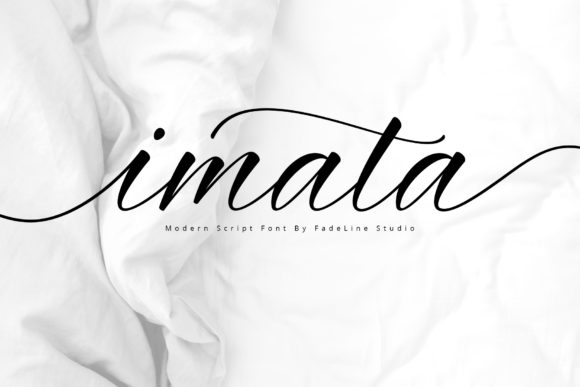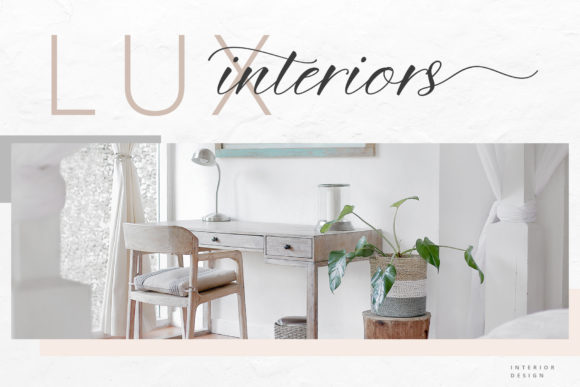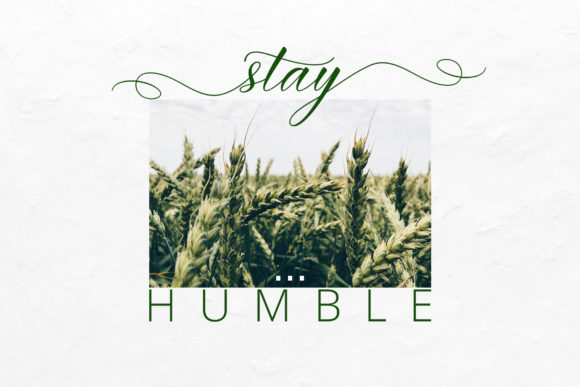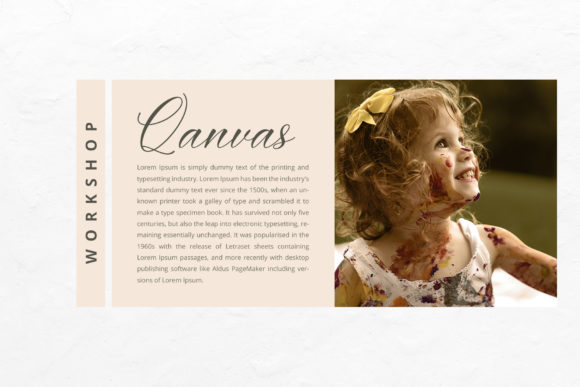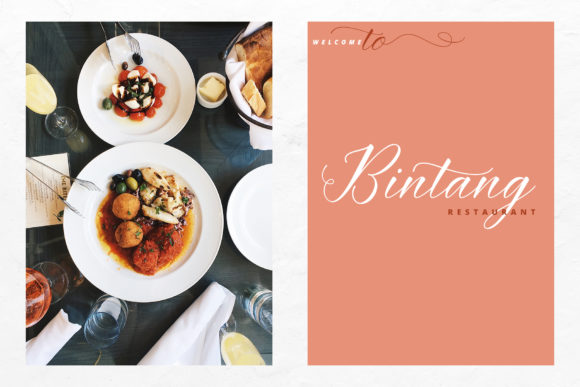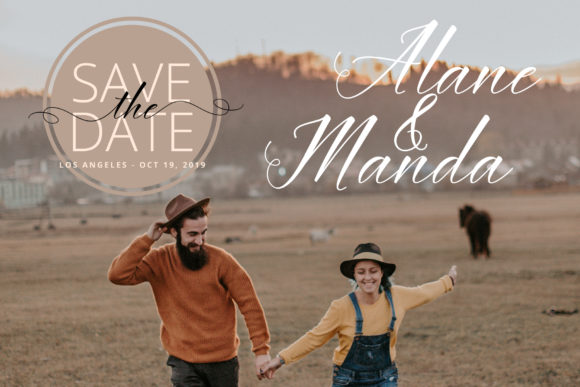
HomeScript FontsImata Script Font Script Fonts Imata Script Font FacebookXPinterestWhatsApp Imata Script Font Poster 2 Imata Script Font Poster 3 Imata Script Font Poster 4 Imata Script Font Poster 5 Imata Script Font Poster 6 About Imata Script Font Imata is a simply stunning and effortless script with a modern feel. Get inspired by its unique charm. DOWNLOAD NOW People also explored Modern Font Bollatala Font Blankid Black Font Recharge Smother Spoon Font Disentris Font Topstitch Wild Heart Berbattu Font 309 0 TagsImata Script Font Previous articleMaisharah FontNext articleCorrea Script Font LEAVE A REPLY Cancel reply Comment: Please enter your comment! Name:* Please enter your name here Email:* You have entered an incorrect email address! Please enter your email address here Website: Save my name, email, and website in this browser for the next time I comment. Personal Use Free Girl Personal Use Free Read more about this font Tide Personal Use Free Read more about this font Quentin Personal Use Free Read more about this font The Royal Personal Use Free Read more about this font BLOG Free vs Paid Fonts: Why Investing in Premium Fonts Is Worth It Free vs Paid Fonts: Why Premium Fonts Are Worth It in 2025 The debate of free vs paid fonts continues in the design world. While... Where to Buy American Fonts Online in 2024 Top 10 Handwritten Fonts That Elevate Your Designs Modern Sans-Serif Fonts That Brands Love in 2025